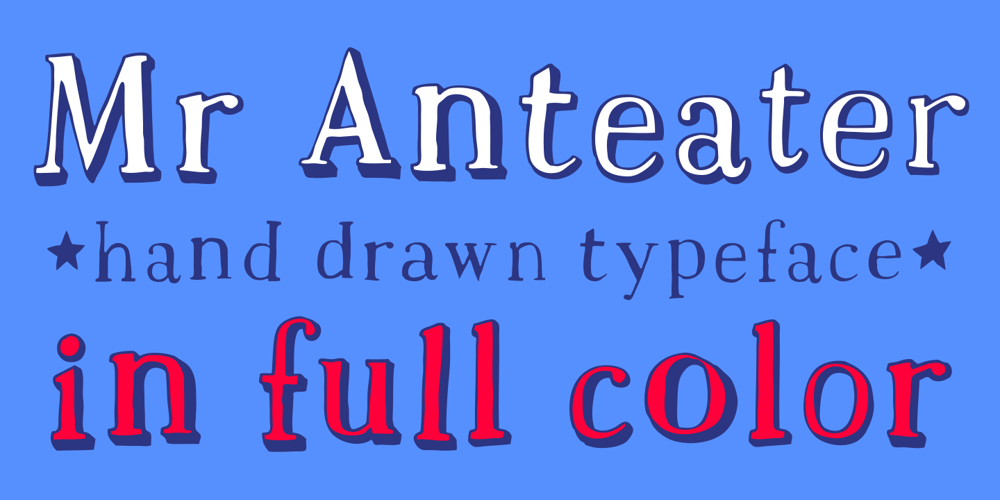
Mr Anteater Font Family was designed by Aleksandra and Daniel Mizielińscy and published by Hipopotam Studio. Mr Anteater contains 3 styles and family package options. Hand drawn serif typeface designed for one of our books. You can use just the regular style or set the fill style over the stroke style to get a more colorful version. It has upper and lowercase characters with up to three alternate glyphs. Build in OpenType Contextual Alternates feature will automatically set alternate glyphs depending on frequency of appearance of the same character (even in web font but only in HTML5 browsers). The script doesn’t throw random glyphs (so it won’t break the layered, two colored version). For example in the word “HIPPOPOTAMUS” you will automatically get three different “P” glyphs and two “O” glyphs. It really works great but of course you can always fine tune it by hand. Mr Anteater has younger sister. Mrs Ant was designed for side notes in the same book.